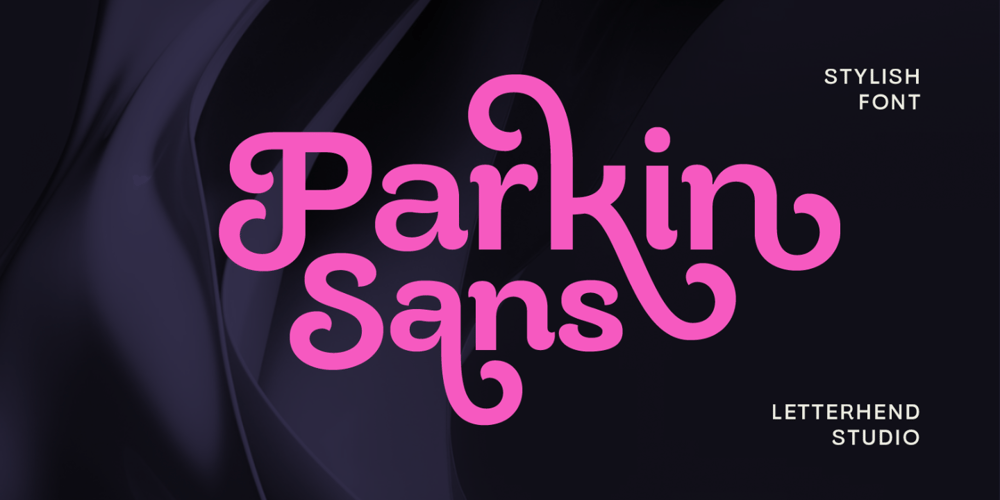
Parkin Font Family was designed by Hendry Juanda and published by Letterhend. Parkin contains 9 styles and family package options. Introducing Parkin Sans, a stylish font designed to elevate your projects with a modern and professional touch. With its 9 weight variations, this font offers flexibility and adaptability to suit any design need. Whether it’s for digital or print, Parkin Sans delivers a sleek and contemporary aesthetic that exudes professionalism.Features : 9 Weights Uppercase & lowercase Numbers and punctuation Alternates & Ligatures Multilingual PUA encoded